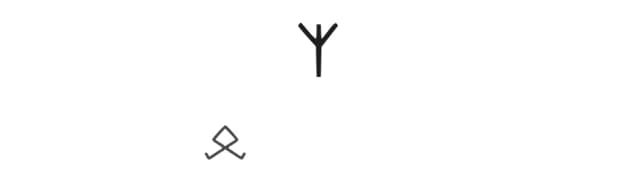
About Elbisch Font
Elbisch is a dingbat font designed by Haldir. It includes 141 glyphs, a medium weight, OTF (CFF) format, and 133 languages. Elbisch is free to download; check the license details on this page before commercial use. Dingbat fonts like Elbisch work best for icons, ornaments, bullet points, and decorative accents.
Elbisch Font is a versatile dingbats font that works for both headings and body text. Pair it with a contrasting sans-serif or serif font to add visual interest and a clear distinction between titles and body copy.
Elbisch Font